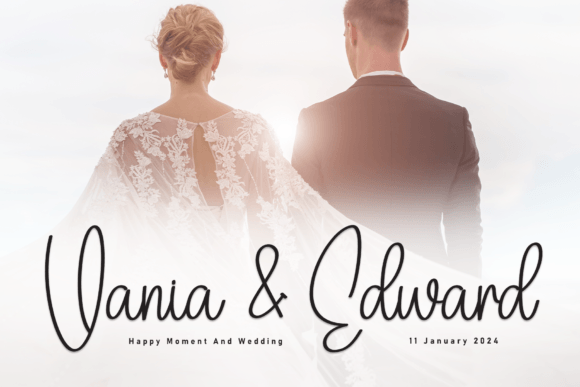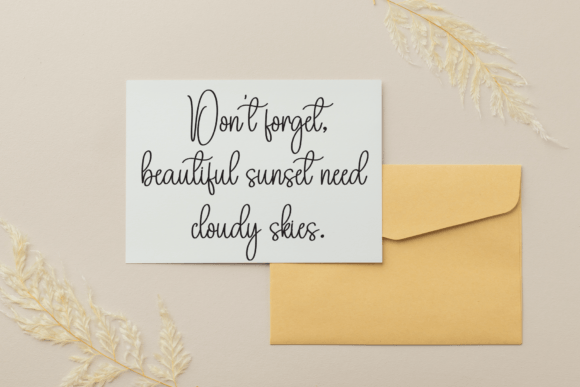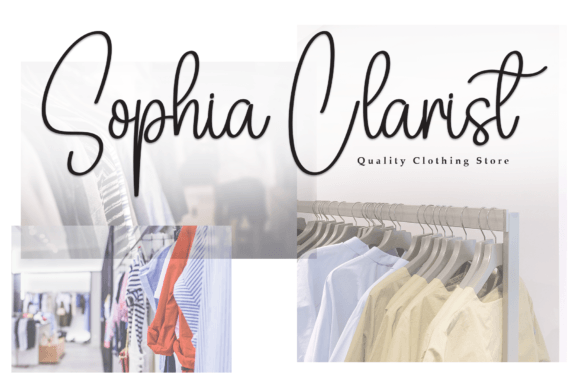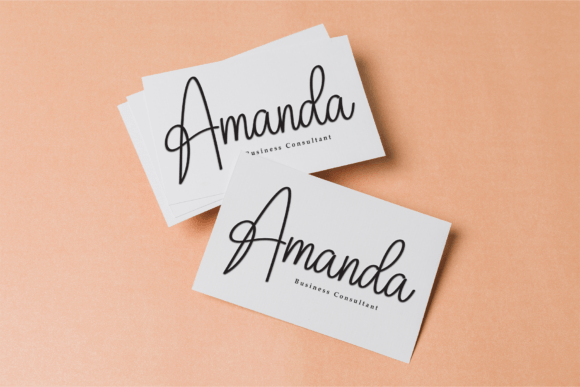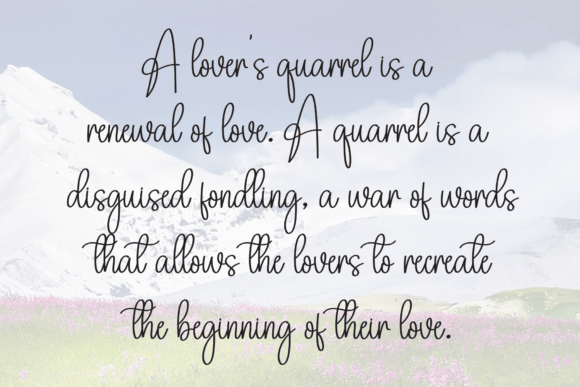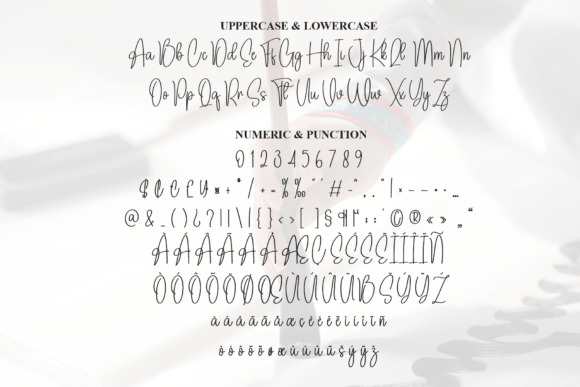
Introducing Camilla Calligraph Font: The Sweet and Cursive Handwritten Font for Your Design Needs
Are you a designer or crafter looking for a font that can add a touch of elegance and romance to your projects? Look no further than Camilla Calligraph Font! This beautiful, cursive handwritten font is perfect for a variety of design ideas and is sure to bring a joyful and romantic feel to your work.
What is Camilla Calligraph Font?
Camilla Calligraph Font is a sweet and cursive handwritten font that is designed to bring a touch of whimsy and charm to your designs. With its gentle and flowing curves, this font is perfect for creating beautiful and eye-catching text that will capture the attention of your audience.
Features of Camilla Calligraph Font
So, what makes Camilla Calligraph Font so special? Here are just a few of its key features:
- Sweet and Cursive Design: Camilla Calligraph Font features a beautiful, cursive design that is both sweet and elegant.
- Handwritten Style: This font has a lovely handwritten style that gives it a personal and unique touch.
- Versatile: Camilla Calligraph Font can be used for a wide range of design ideas, from wedding invitations and party decor to branding and advertising.
- Easy to Read: Despite its cursive design, Camilla Calligraph Font is easy to read and understand, making it perfect for use in body text or headings.
Uses for Camilla Calligraph Font
So, what can you use Camilla Calligraph Font for? The possibilities are endless! Here are a few ideas to get you started:
- Wedding Invitations: Camilla Calligraph Font is perfect for wedding invitations, save-the-dates, and other wedding-related stationery.
- Party Decor: Use this font to create beautiful party decorations, such as banners, garlands, and gift tags.
- Branding and Advertising: Camilla Calligraph Font can be used to create stunning brand identities, logos, and advertising materials.
- Digital Products: This font is also great for use in digital products, such as printable art, planners, and journals.
Why Choose Camilla Calligraph Font?
So, why should you choose Camilla Calligraph Font for your design needs? Here are just a few reasons:
- Unique and Eye-Catching: Camilla Calligraph Font is a unique and eye-catching font that will help your designs stand out from the crowd.
- High-Quality: Camilla Calligraph Font is a high-quality font that is designed to look great on a variety of devices and platforms.
In conclusion, Camilla Calligraph Font is a beautiful and versatile font that is perfect for designers and crafters who want to add a touch of elegance and romance to their projects. With its sweet and cursive design, handwritten style, and ease of use, this font is sure to become a favorite in your design toolkit. So why wait? Download Camilla Calligraph Font today and start creating stunning designs that will capture the attention of your audience!
Key Benefits of Camilla Calligraph Font
Unique Design
Camilla Calligraph Font features a unique and eye-catching design that will help your designs stand out from the crowd.
High-Quality
Camilla Calligraph Font is a high-quality font that is designed to look great on a variety of devices and platforms.